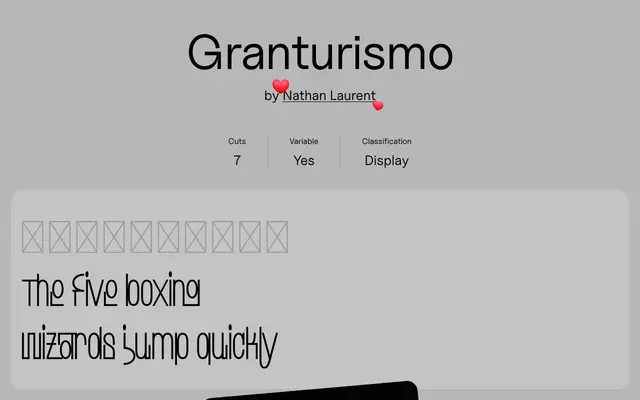
Granturismo
A variable display typeface by Nathan Laurent, available in seven cuts under the SIL Open Font Licence for both personal and commercial use.
Designed by Nathan Laurent, Granturismo is a display typeface distributed through Uncut as a free, open-source release. It comes in seven cuts including a variable font, giving designers flexibility across headline and large-scale applications. The SIL Open Font Licence permits commercial use, modification and redistribution with some conditions.
The foundry classifies this as Display; the name and variable cuts suggest a decorative or high-impact typeface intended for headline and large-scale use rather than continuous text.